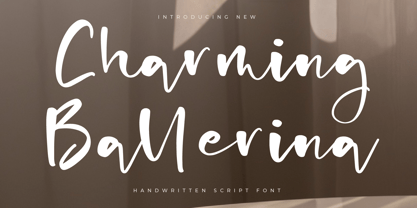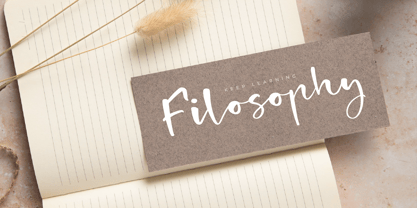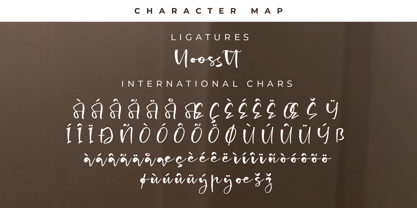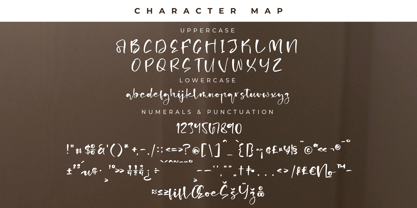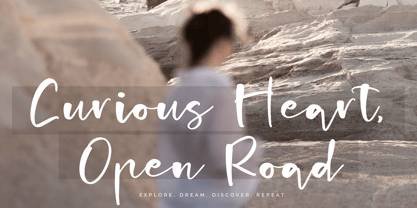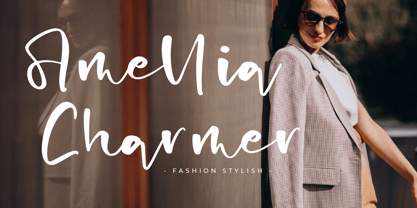
Charming Ballerina
The Charming Ballerina Font Family was designed by Heru Utama Putra and published by Letterena Studios. Charming Ballerina contains 2 styles and family package options. More about this family
Charming Ballerina – Handwritten Script Font , from Letterena, is a Luxury Script font, suitable for any projects such as: logos, branding projects, homeware designs, product packaging, mugs, quotes, posters, shopping bags, t-shirts, book covers, name card, invitation cards, greeting cards, label, photography, watermark, special events, and all your other luxury and beautiful projects that need a Luxury serif taste.